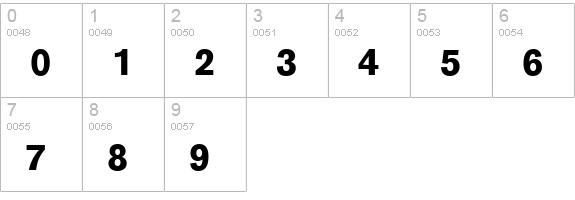
Ancona-Bold Font Details
Ancona-Bold is a strong, high-contrast variant in the Ancona typeface family \xE2\x80\x94 well suited to headlines, attention-grabbing titles, and strong calls-to-action.
Ancona-Bold is a striking and modern typeface that exudes confidence and strength. With its bold and powerful design, this font commands attention and makes a bold statement in any project. The sleek lines and sharp edges of Ancona-Bold give it a contemporary and sophisticated look that is perfect for headlines, titles, and other prominent text. What sets Ancona-Bold apart is not just its impressive aesthetics, but also its versatility. Whether you're designing a website, creating a poster, or crafting a logo, this font will add a touch of elegance and professionalism to your work. Best of all, Ancona-Bold is available for free download at FontsMarket.com, making it accessible to everyone who wants to enhance their designs with this exceptional font. Don't miss out on the opportunity to elevate your projects with the bold and stylish Ancona-Bold font today!